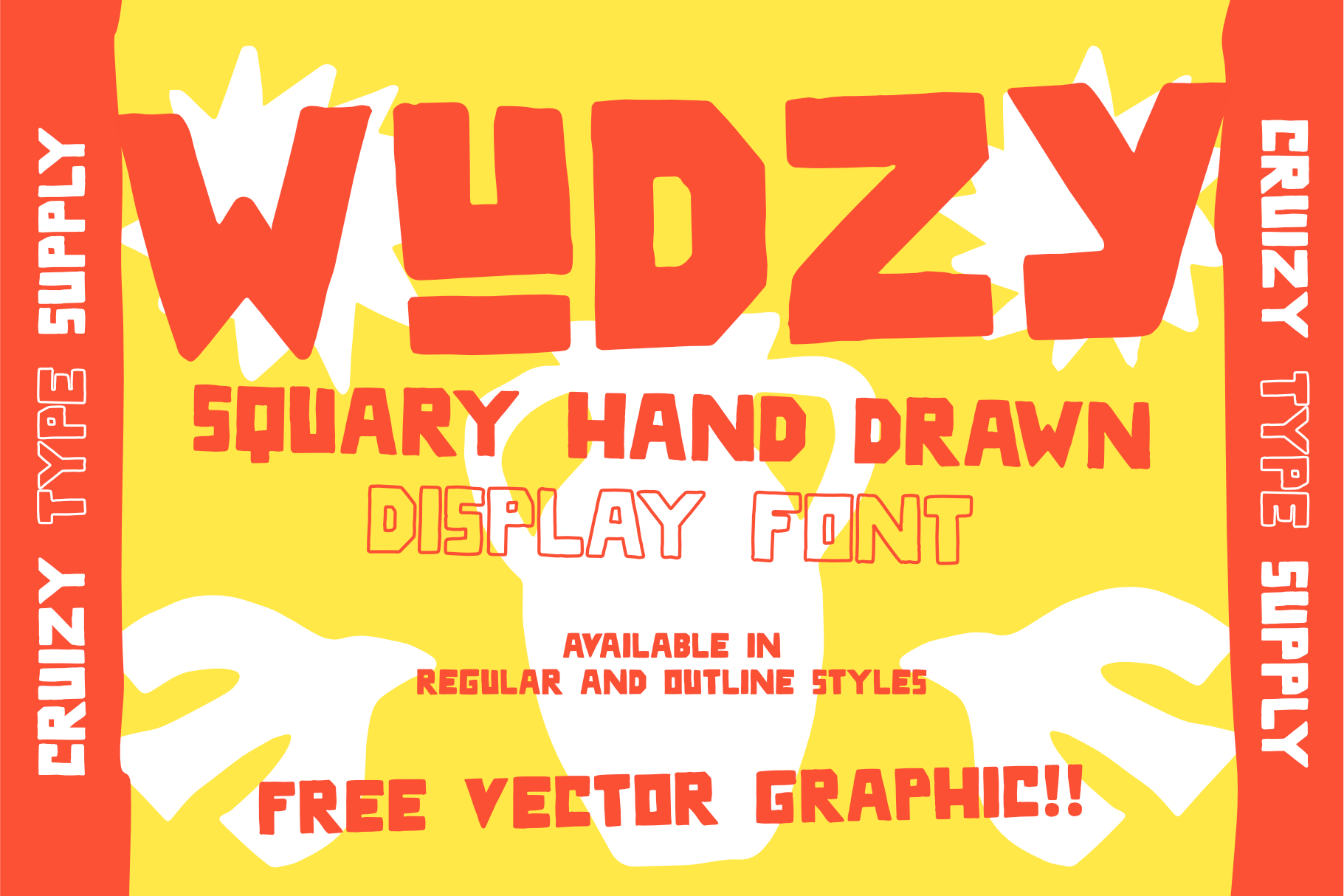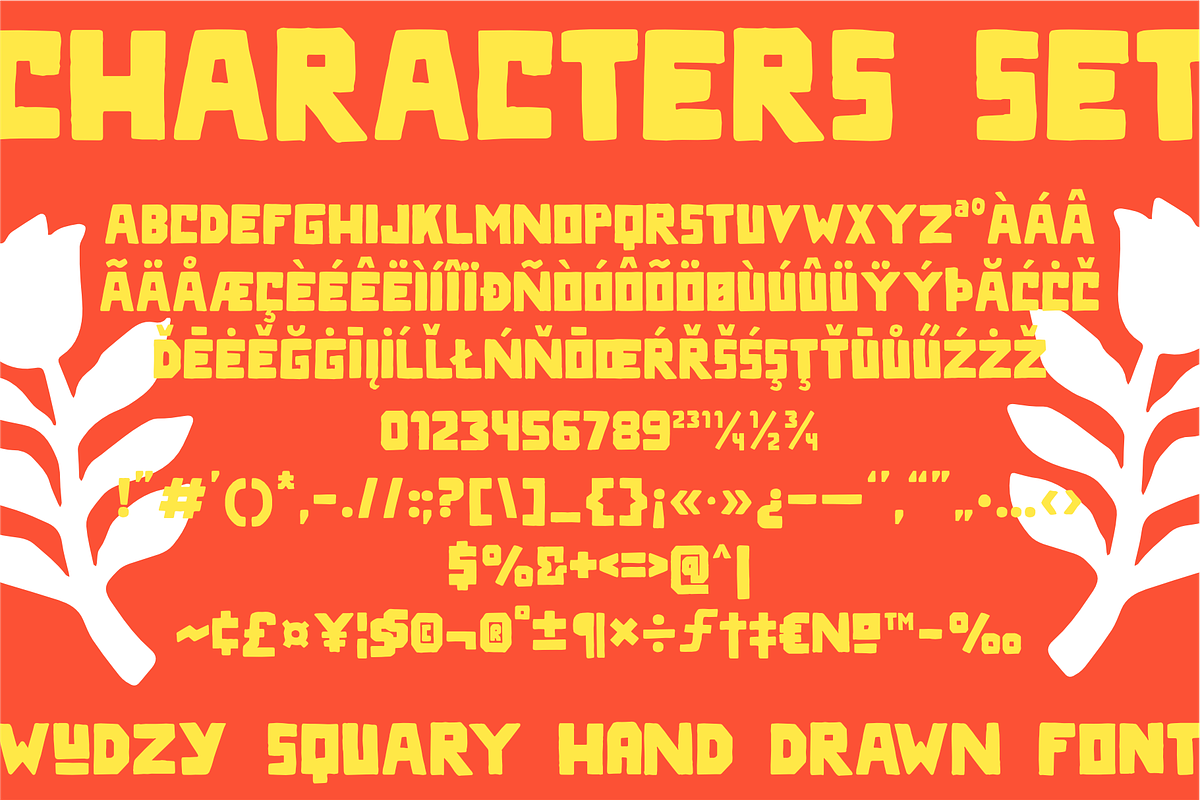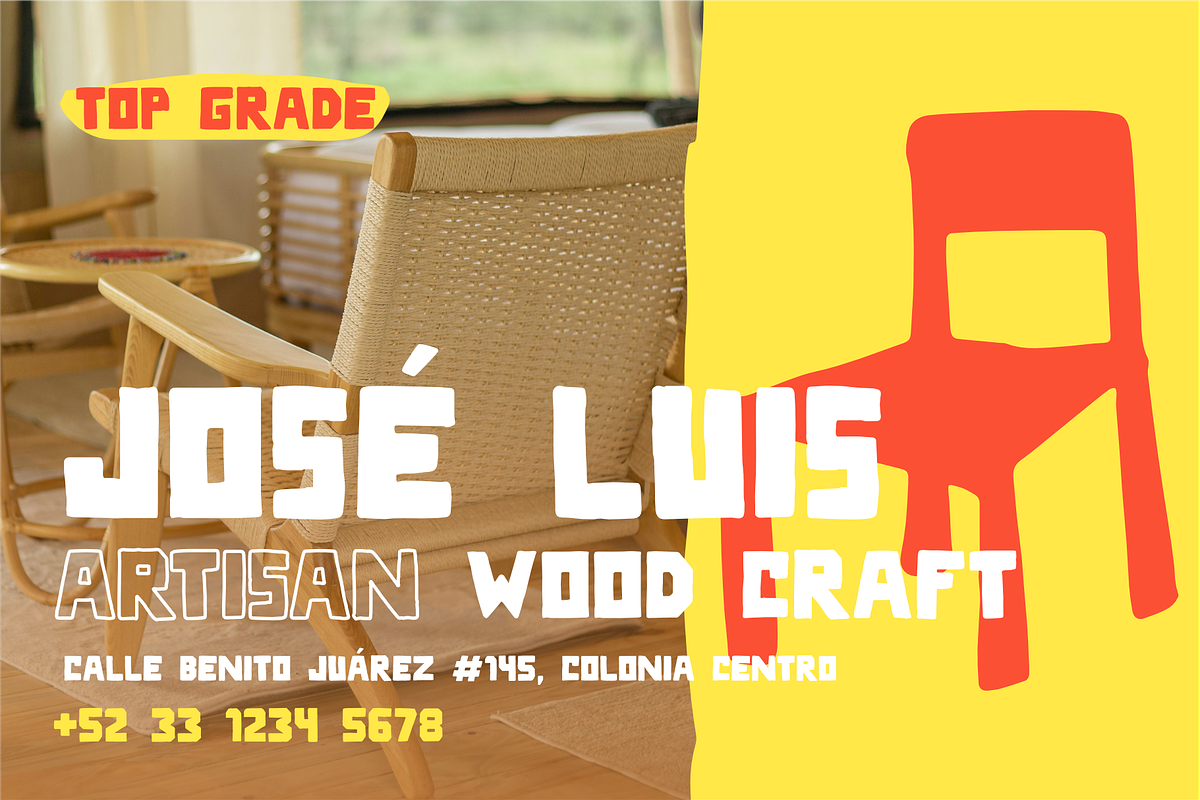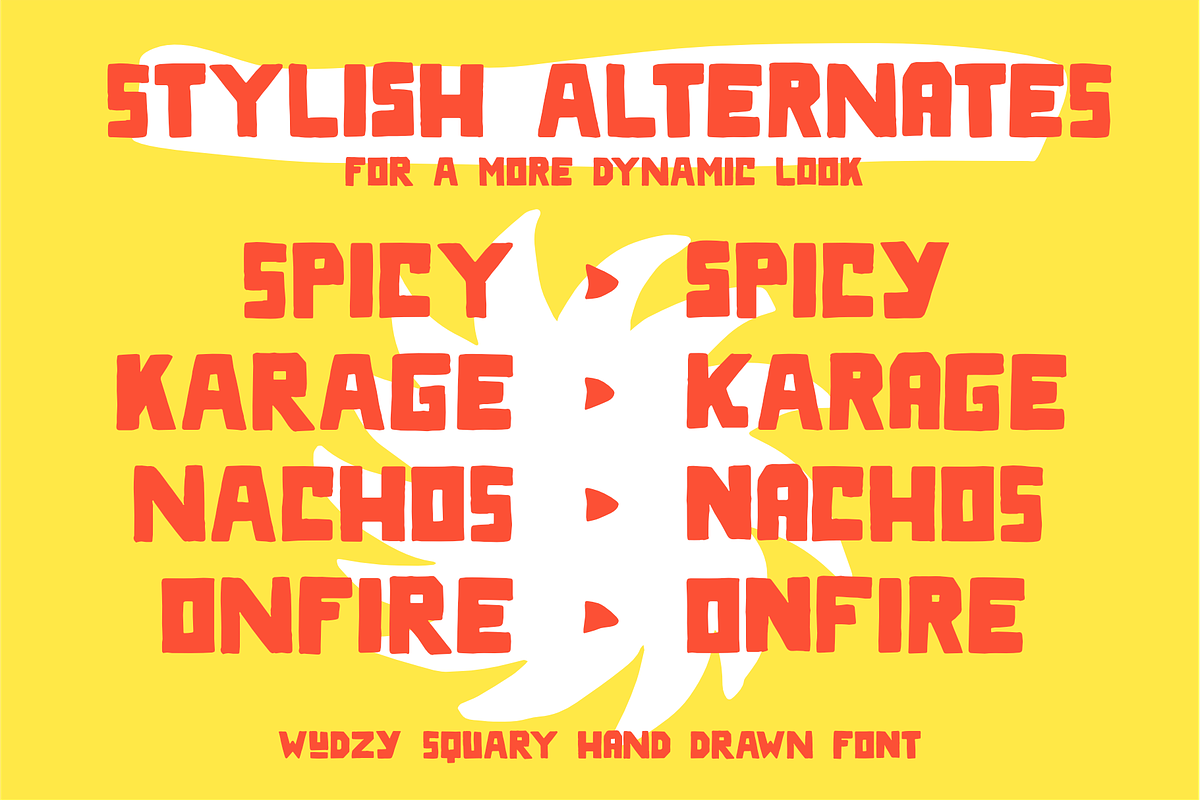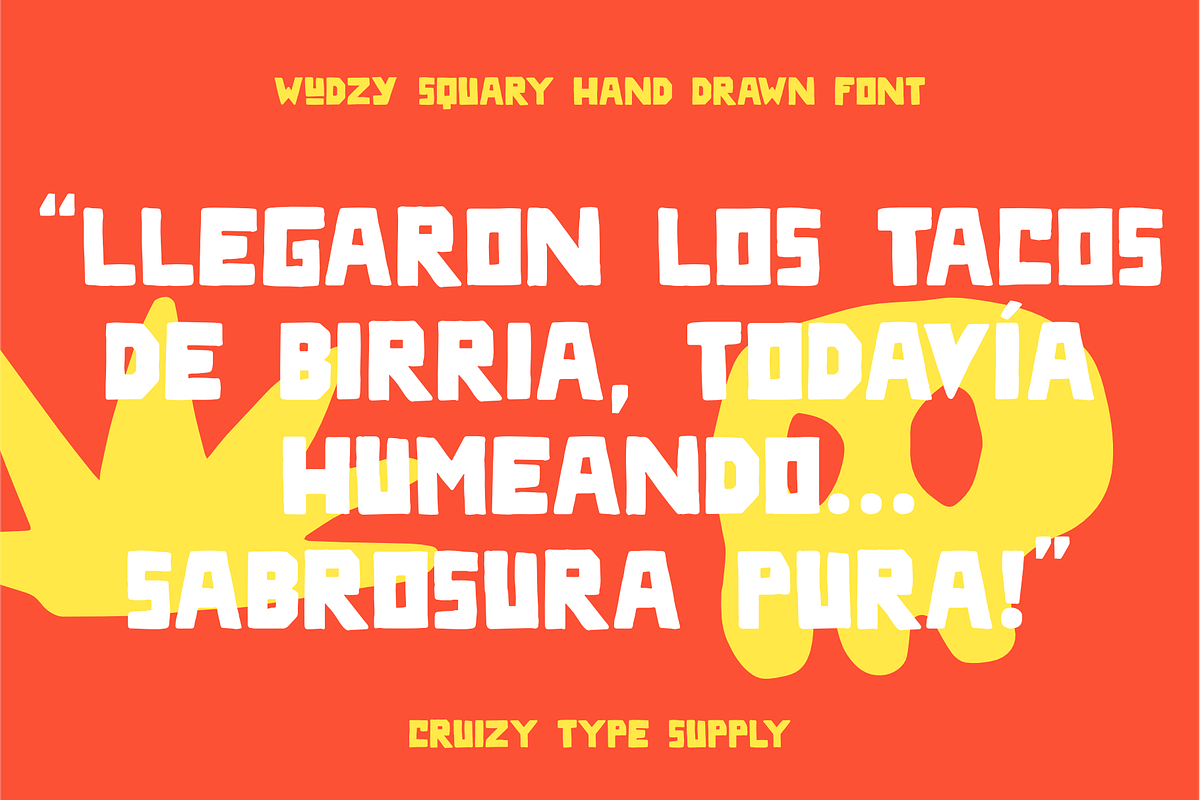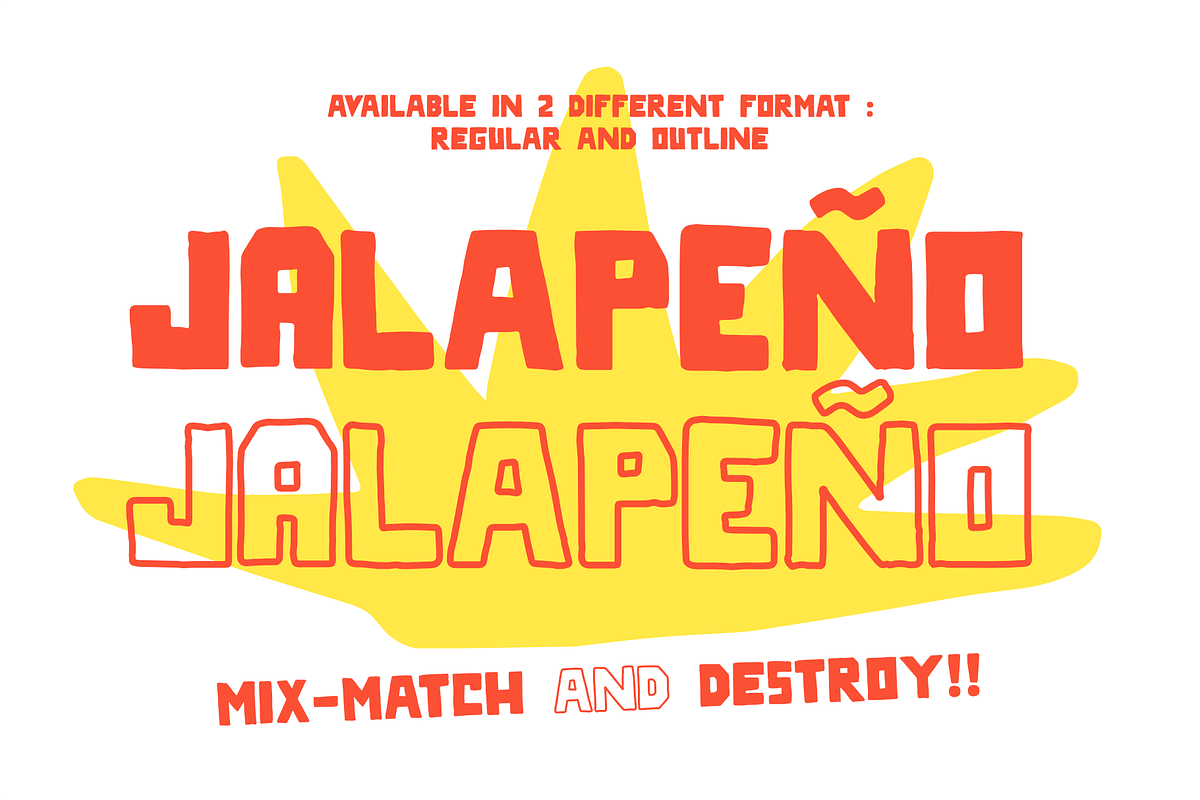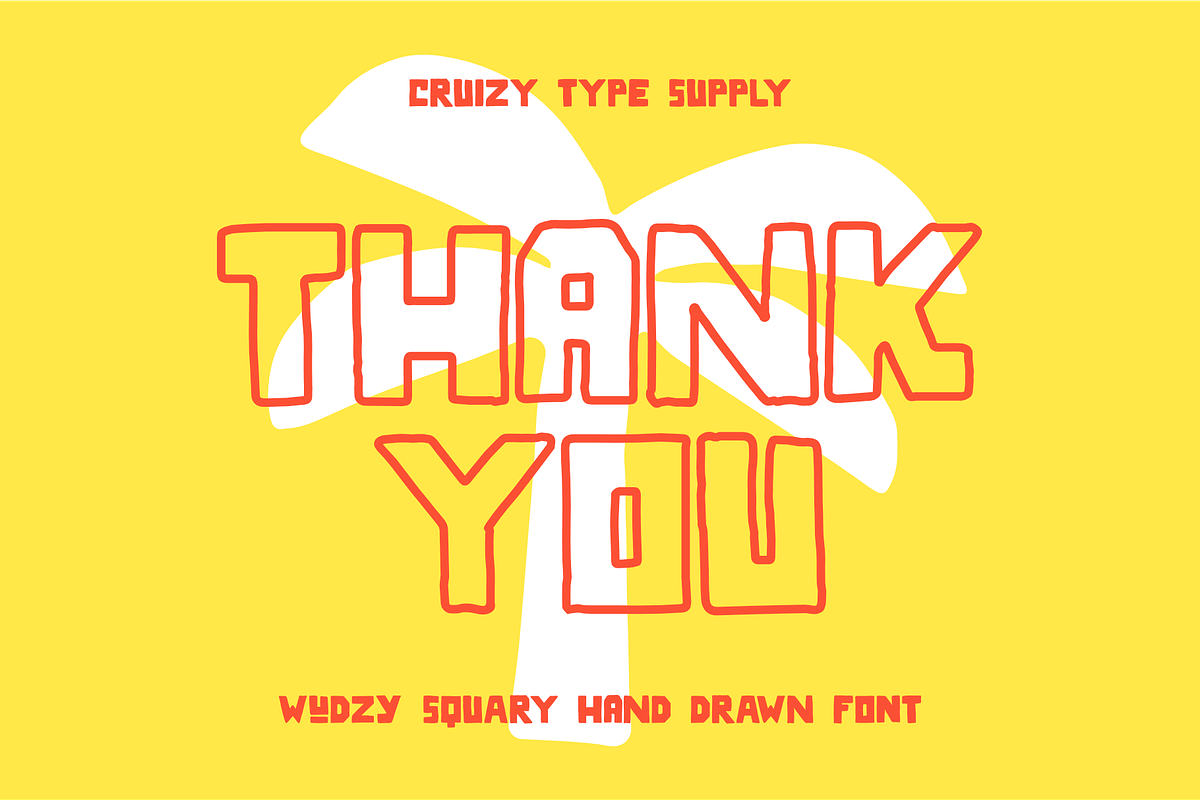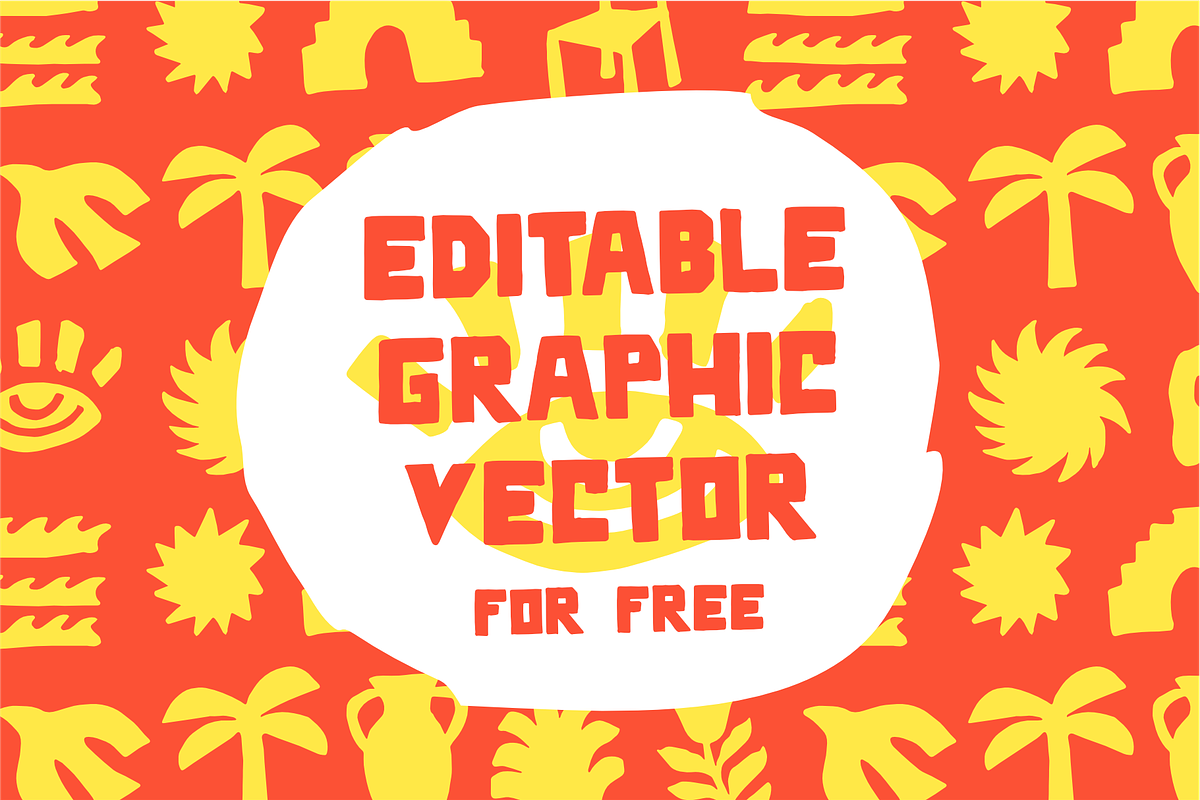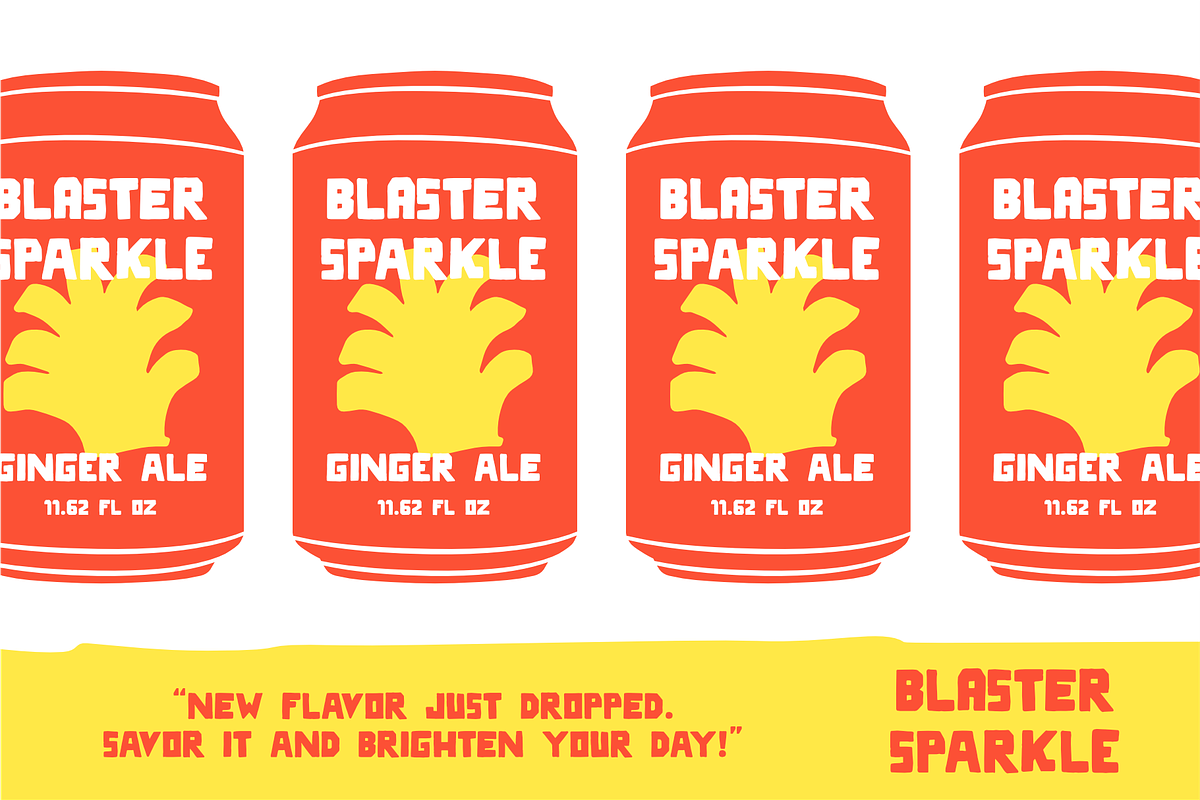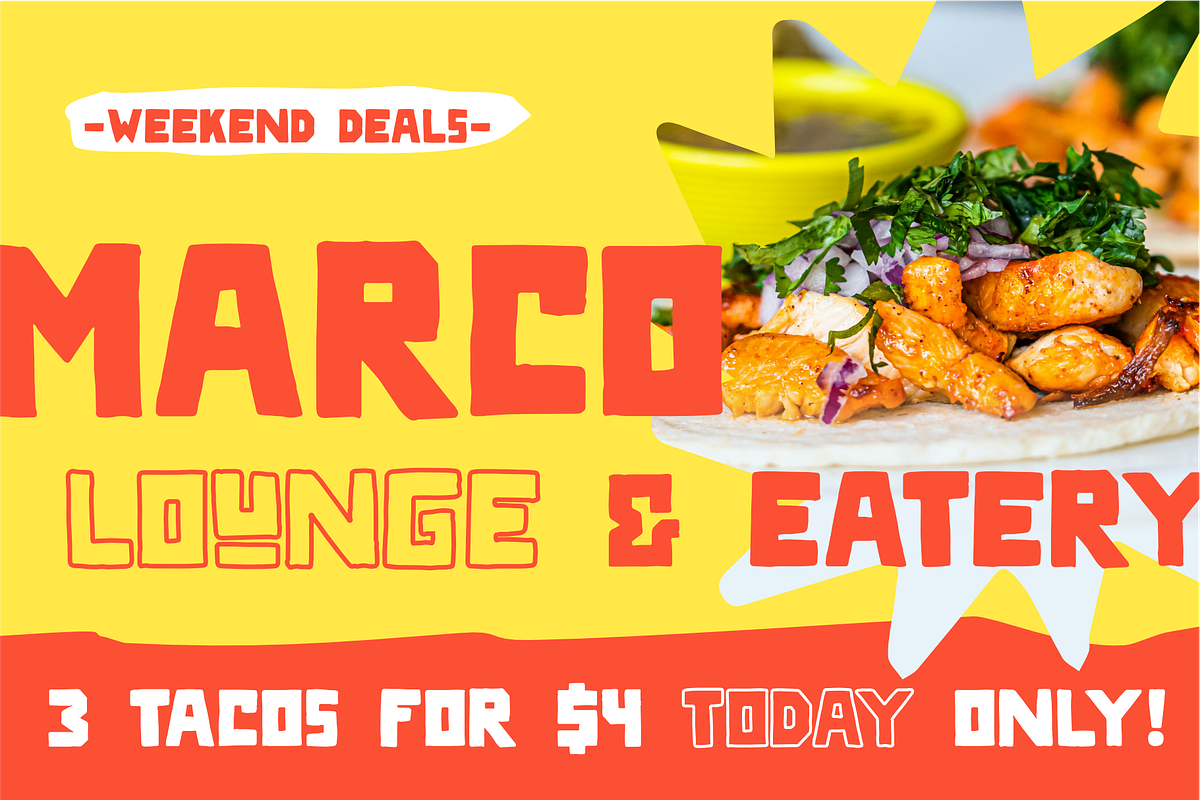
WUDZY - Handdrawn Display Font
WUDZY is a bold, hand-drawn display font with a square structure and an artistic soul. Every letter feels intentionally imperfect as if sketched by hand delivering an authentic, creative energy that’s impossible to ignore.
Designed to make your message stand out, WUDZY is perfect for food promos, craft product packaging, event posters, or any project that needs a loud, playful, and artsy touch. Its handmade character adds personality, while the square shapes give it a strong, confident voice.
- 2 Styles: Regular & Outline
- All-Caps Character
- Symbol, Punctuation & Currency
- Stylistic Alternate
Whether you're designing for a street food festival, a handmade soap brand, or a bold merchandise drop WUDZY brings the handcrafted charm and creative punch your work deserves. Make it raw. Make it real. Make it WUDZY.